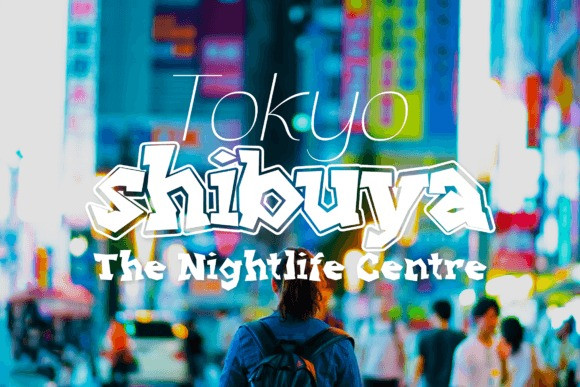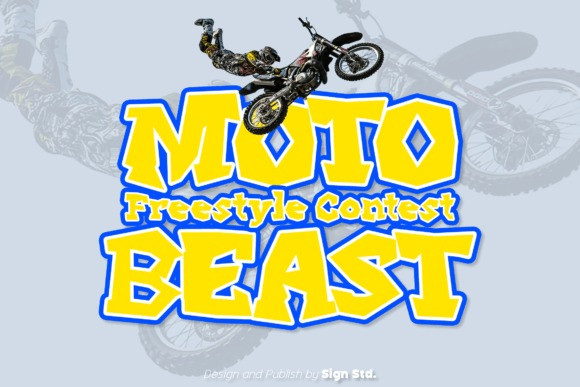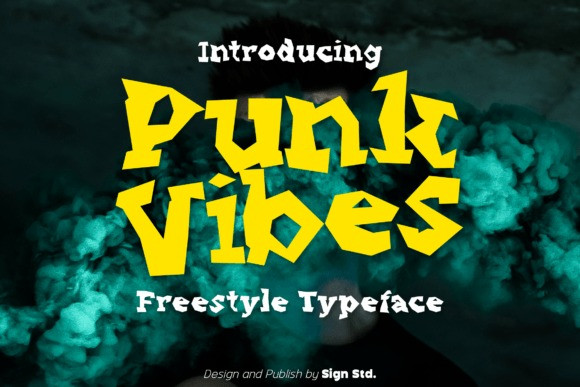
Punk Vibes Font
Punk Vibes Font is a font for display purposes that reflects creativity and nature. It will be suitable for making a dramatic impression on posters, brochures, apparel, logotypes, and many other types of print. This font is PUA encoded which means you can access all of the glyphs and alternates with ease.